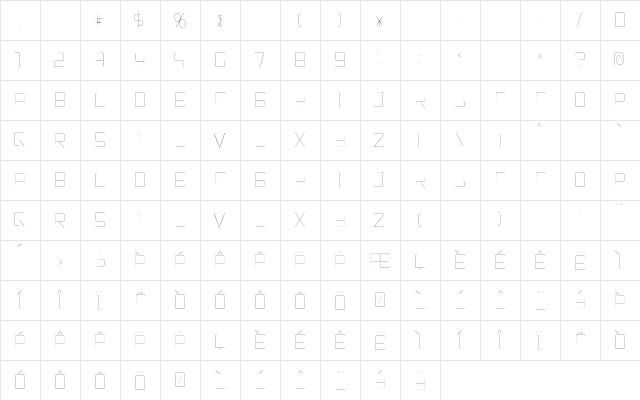
EpicenterThin Regular
| Foundry | Xerographer Fonts |
| Designer | Max Infeld Xerographer Fonts |
Design Context for EpicenterThin Typeface
EpicenterThin takes a measured approach to typography — its balanced proportions and neutral character make it a reliable workhorse for both digital and print work. Its slender proportions lend an understated elegance to any composition.